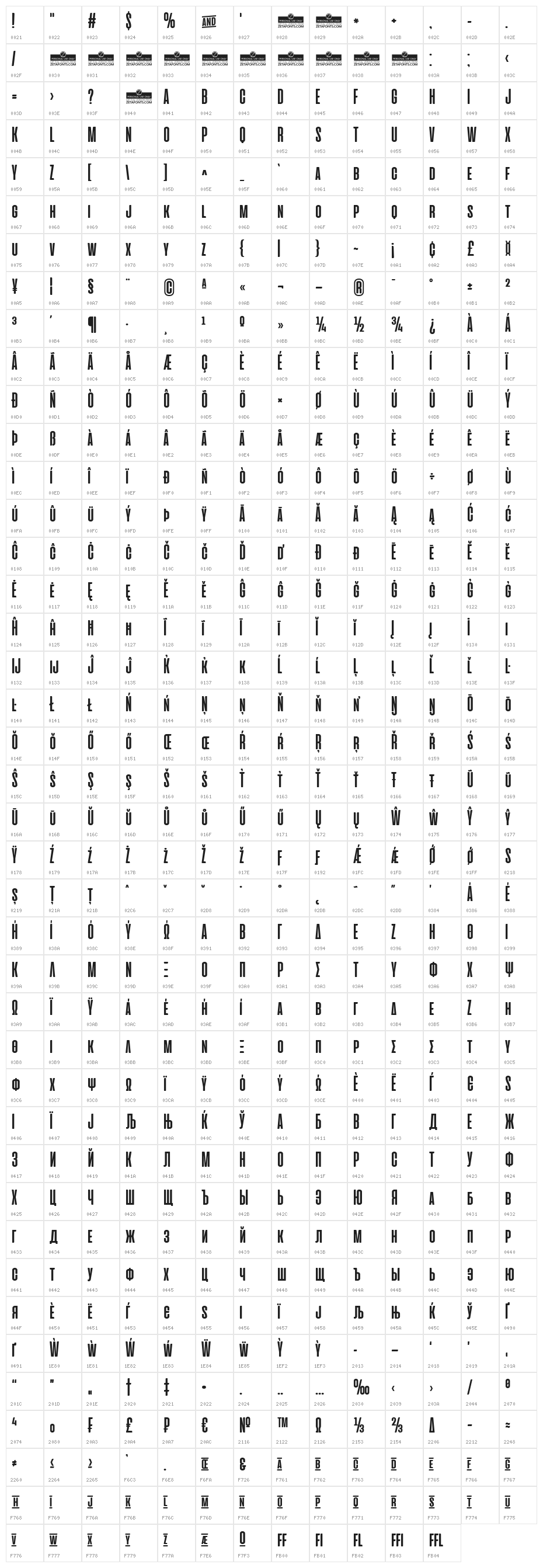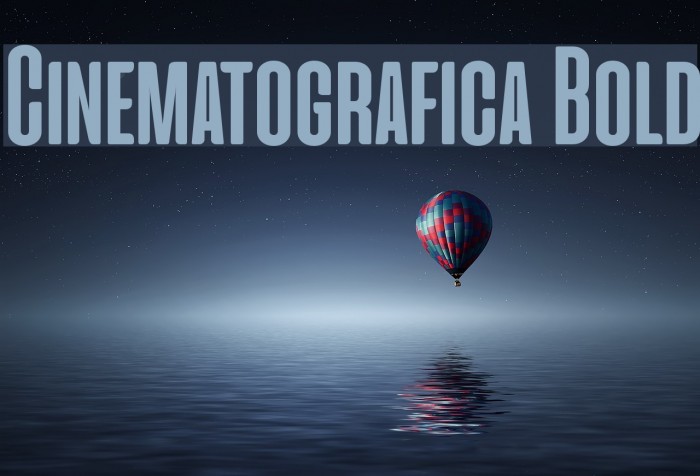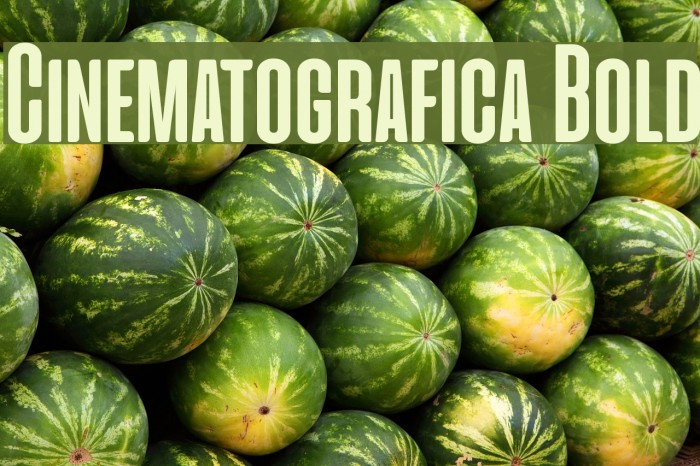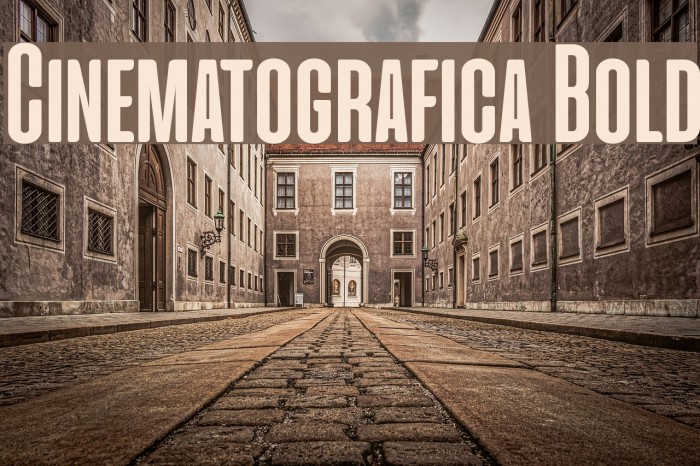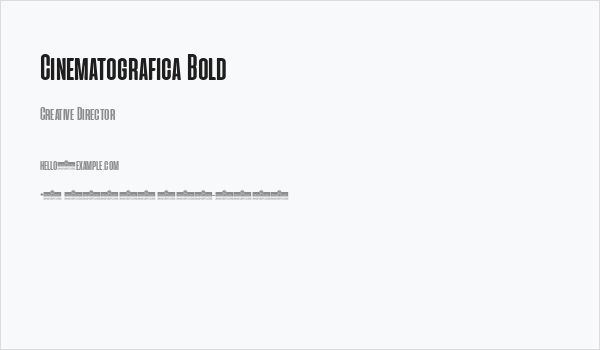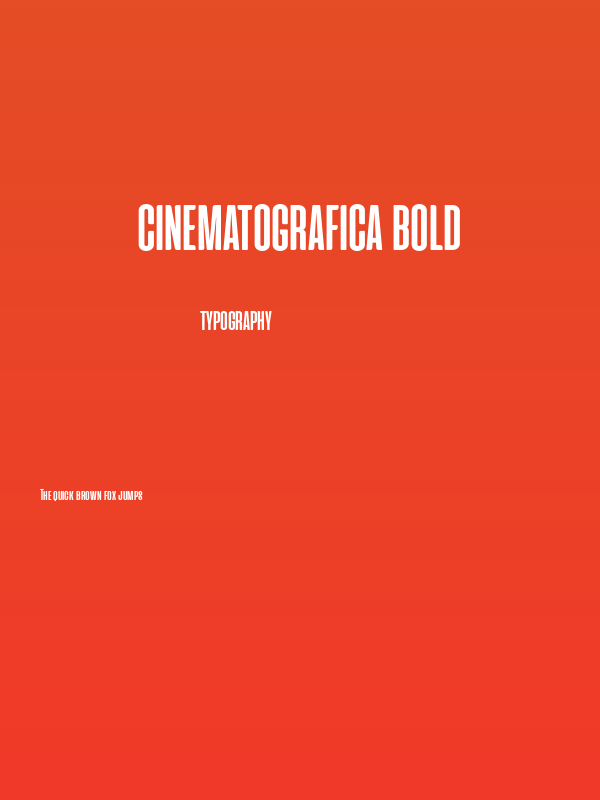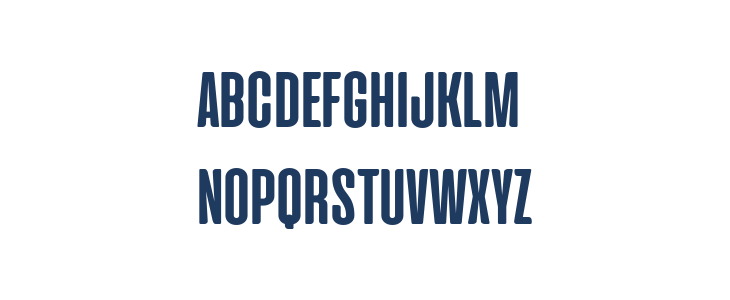
Cinematografica Bold Font
Cinematografica Bold Description
This font features a bold and impactful design with thick, uniform strokes that create a strong visual presence. The characters are tall and slightly condensed, giving a modern and sleek appearance. The uppercase and lowercase letters maintain a consistent style, with clean lines and minimal decorative elements. The numerals and special characters are designed to match the boldness of the alphabet, ensuring a cohesive look across all text. This font is ideal for making a statement and capturing attention with its assertive style.
| Proposed Projects | Ideal for movie posters, headlines, branding materials, and advertising campaigns that require a strong visual impact. |